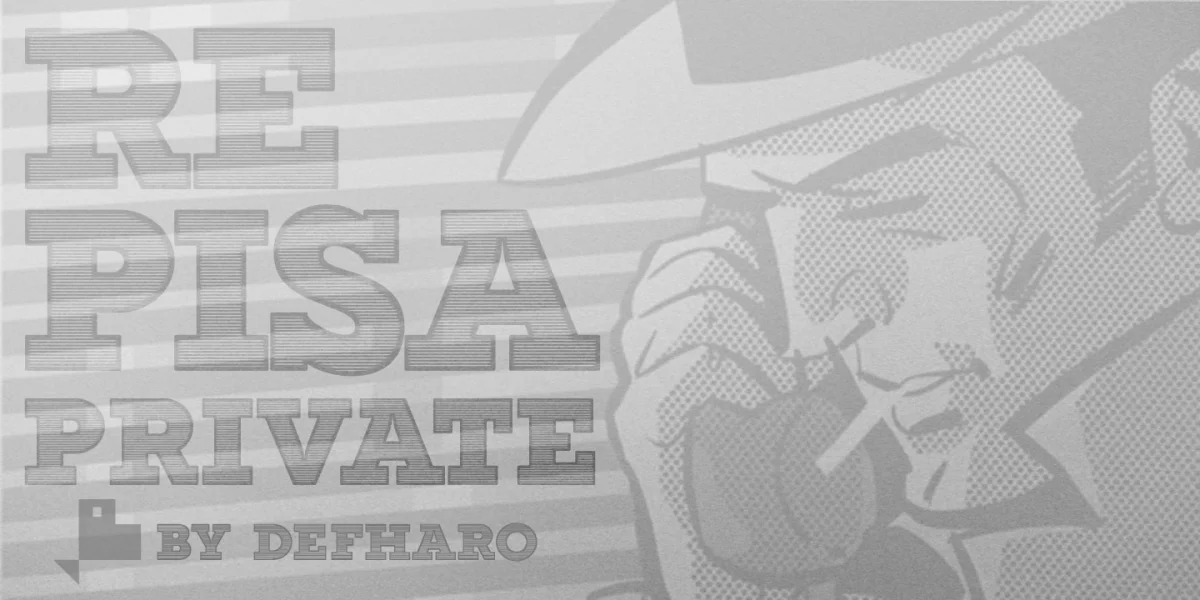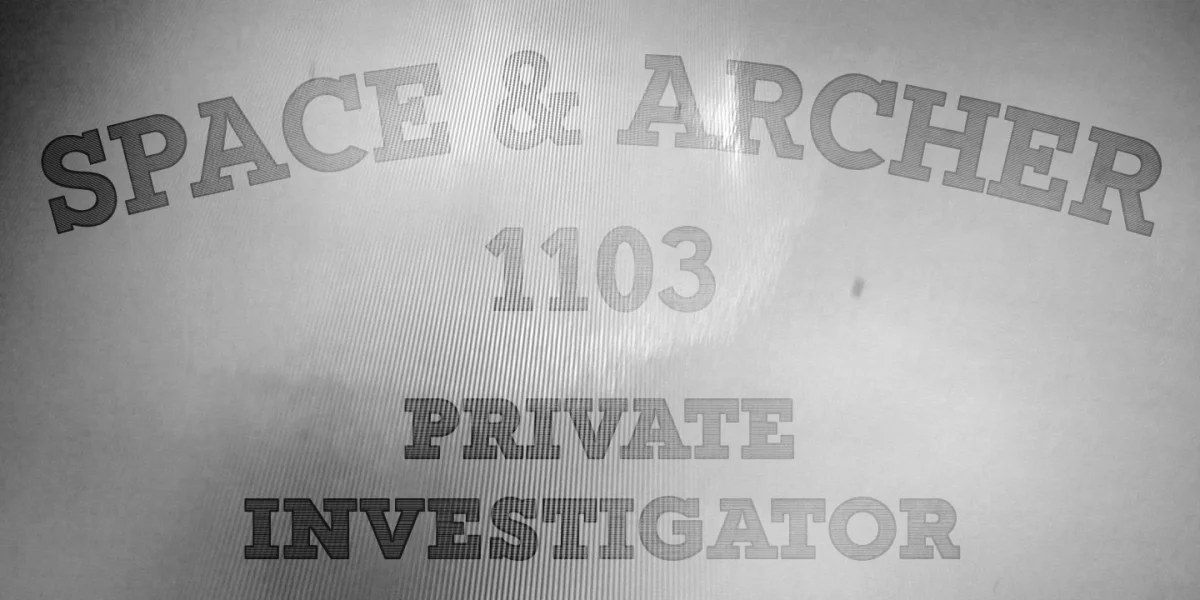
Repisa is a thick Slab Serif font of engraved type. Pay for the font whatever you want: https://defharo.com/fonts/ Copyright © 2019 by deFharo. All rights reserved.